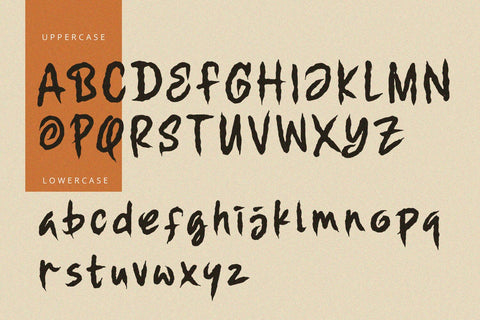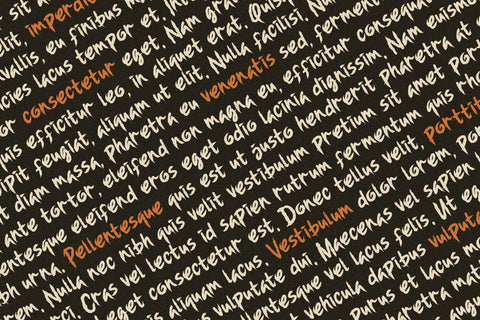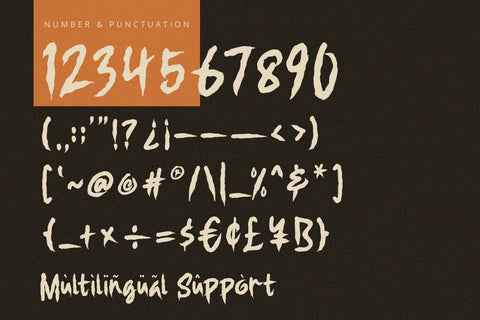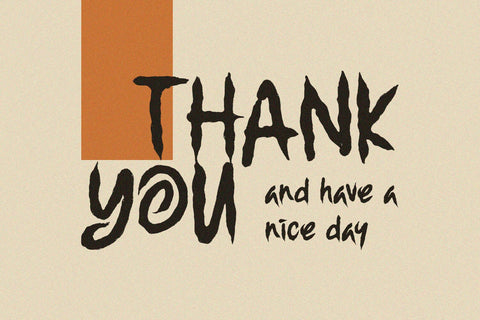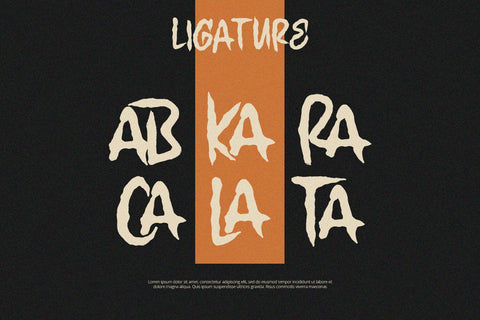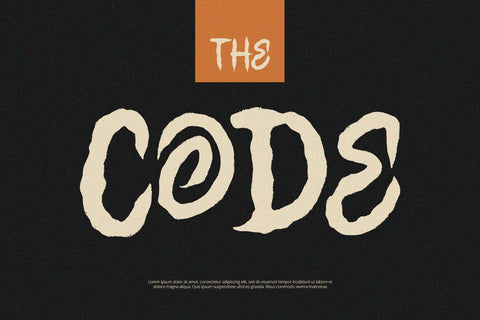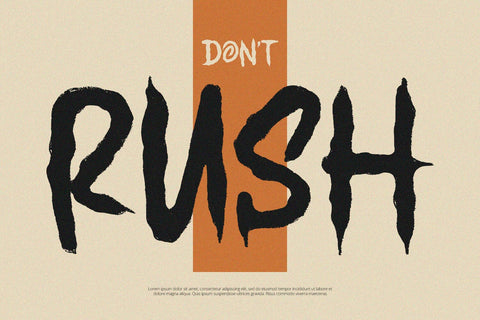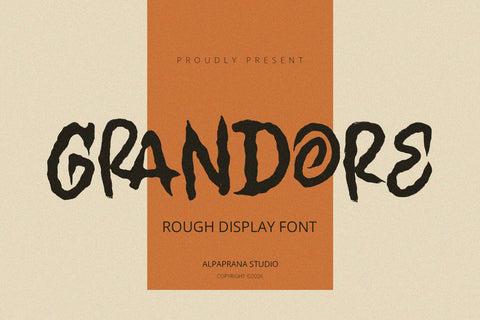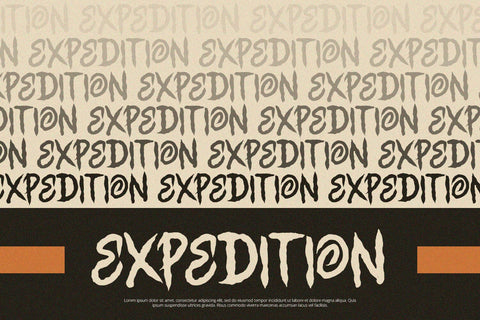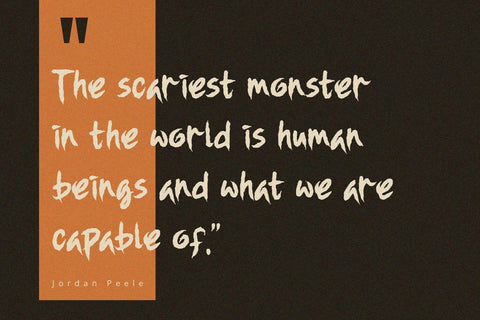
Grandore - Display Font
Grandore is display font with modern feels. It will be perfectly used for Branding, Logo Design, Lettering, Logotype, Clothing, Poster, magazine, packaging, posters, shopping bags, t-shirts, book covers, photography, special events and other design project.